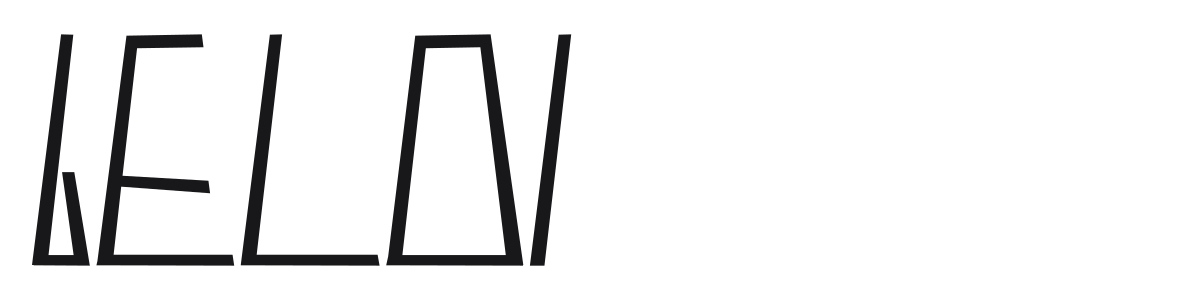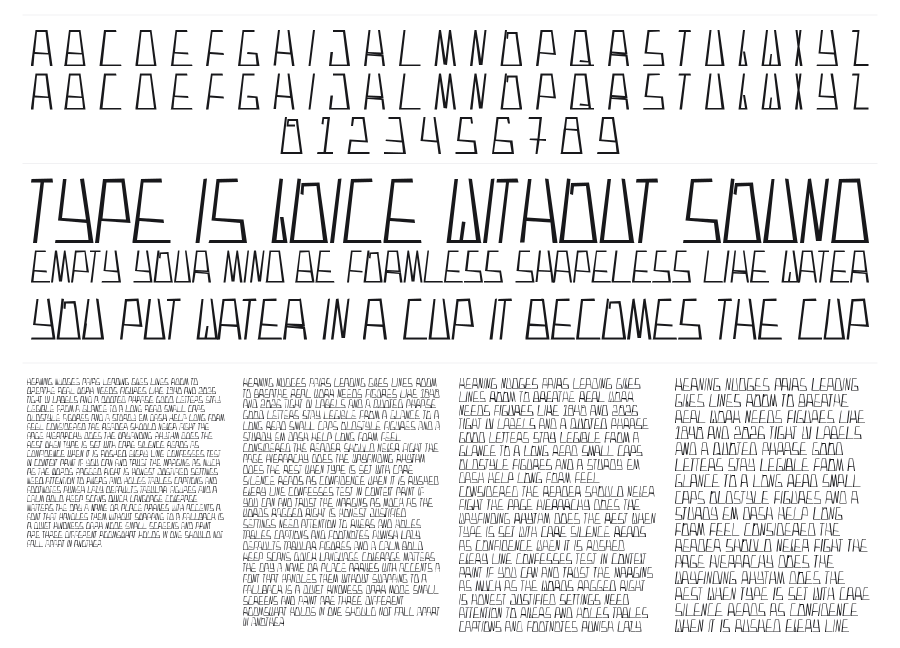
Veldi
Veldi is a condensed geometric sans built almost entirely from straight lines, giving each character a squared, architectural rigidity. Its name comes from the Icelandic word for 'square,' and that DNA shows in every angle. The irregular diagonals and light stroke weight push it firmly into cosmic, sci-fi territory, making it a natural choice for galactic poster titles and comic headers.